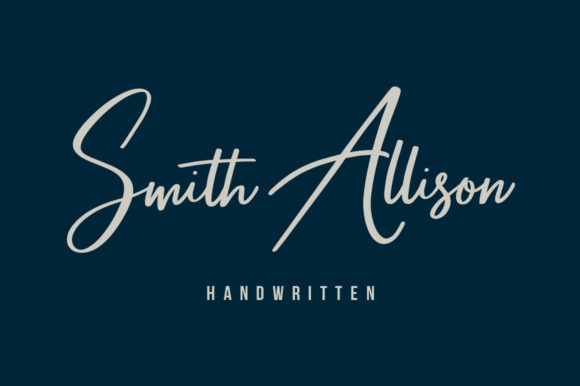
Embrace the allure of Smith Allison, a font that embodies elegance and sophistication. Crafted with impeccable precision, it's designed to elevate your creative projects and leave a lasting impression.
Inspired by the timeless beauty of handwritten calligraphy, Smith Allison exudes a touch of vintage charm, seamlessly blending tradition with a modern twist. Let your words dance across the page, adorned with a script that captures the essence of romance and grace.
Picture your wedding invitations, adorned with the delicate strokes of Smith Allison. It's as if each letter is a petal, carefully arranged to create a visual symphony. Your guests will be mesmerized by the ethereal beauty of your stationery, setting the tone for an unforgettable celebration.
Beyond weddings, Smith Allison shines in countless other applications. Its versatility lends itself to logos, branding, and social media posts, adding an air of sophistication to your designs. Imagine your brand name, meticulously crafted with Smith Allison, standing out from the crowd with its timeless appeal.
With Smith Allison, your creative possibilities are limitless. Let your imagination soar as you explore the endless ways to harness its beauty. Whether you're a graphic designer, a blogger, or simply someone who appreciates the art of written expression, Smith Allison is your perfect companion.
Join the ranks of discerning creatives who have discovered the magic of Smith Allison. Transform your designs into works of art, capturing hearts and imaginations with every stroke of the pen. Embrace the elegance, exude the sophistication, and ignite the passion within.